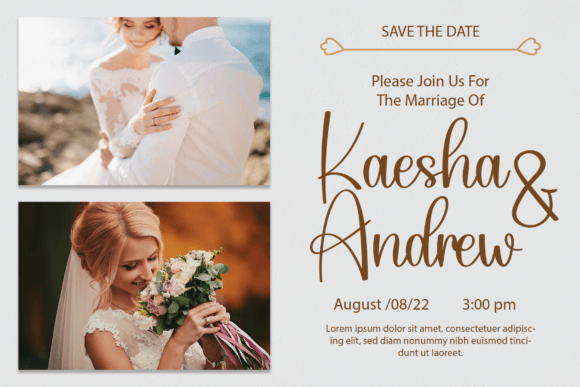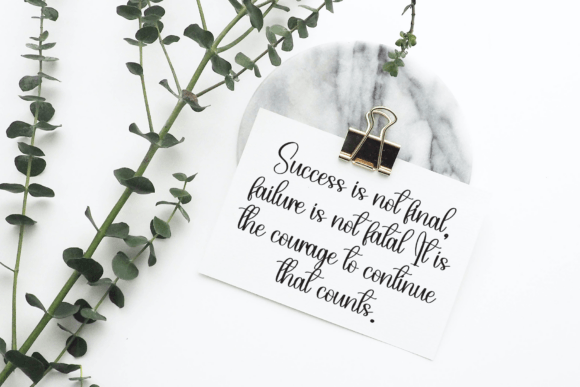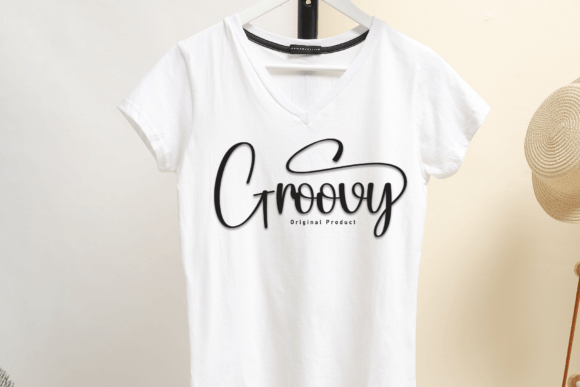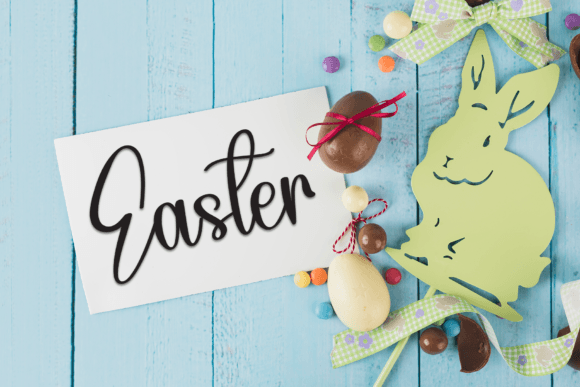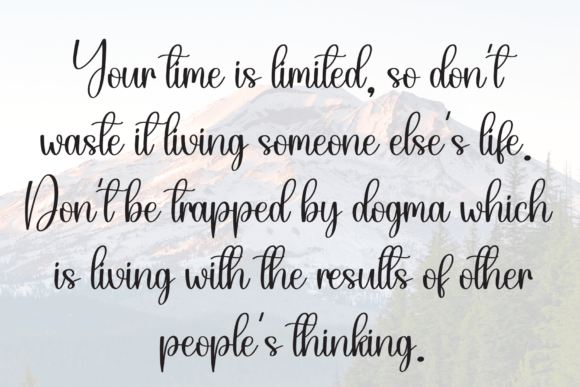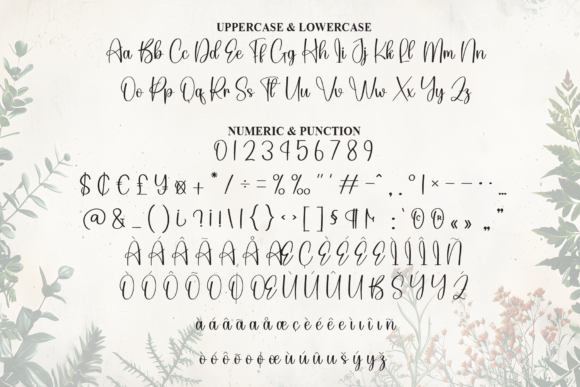
Introduction to Rustic Beauty Font
Rustic Beauty is a charming handwritten font that captures a cozy and relaxed feeling.
Its playful letters have a warm, friendly vibe, making it perfect for personal notes, invitations, or anything that needs a touch of warmth The font has a unique style, with soft curves and a casual look that feels like a friendly wave goodnight.
Rustic Beauty Font offers exceptional quality and versatility, making it a valuable addition to your design toolkit. Whether you’re creating for personal projects or commercial use, Rustic Beauty Font delivers professional results.